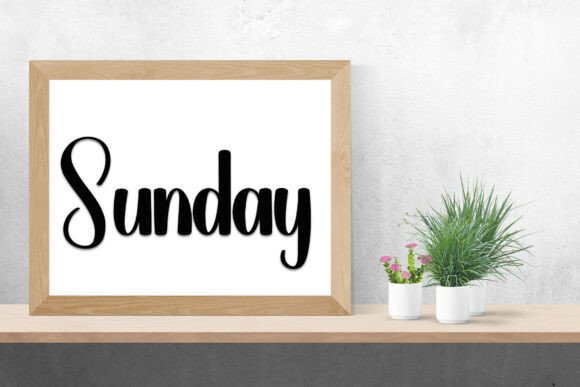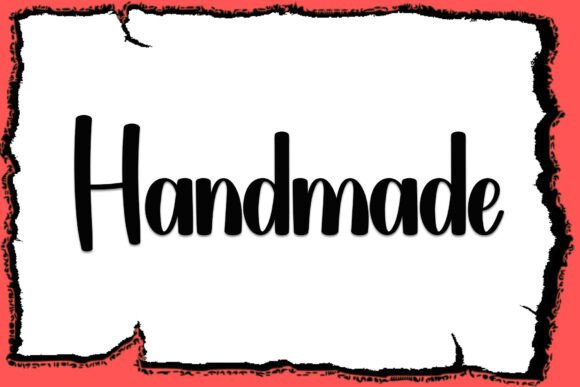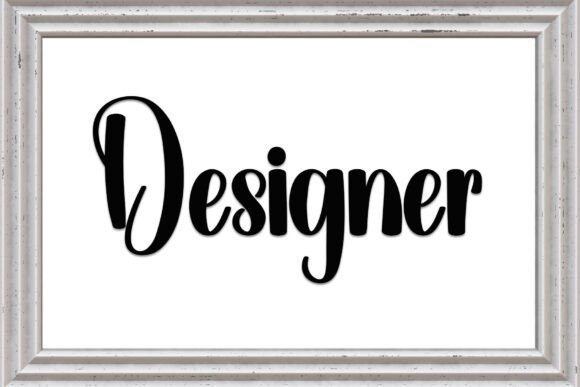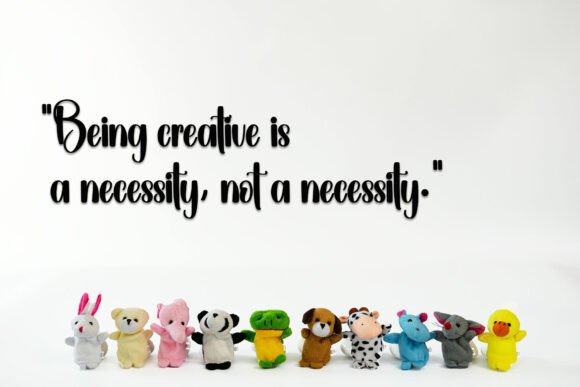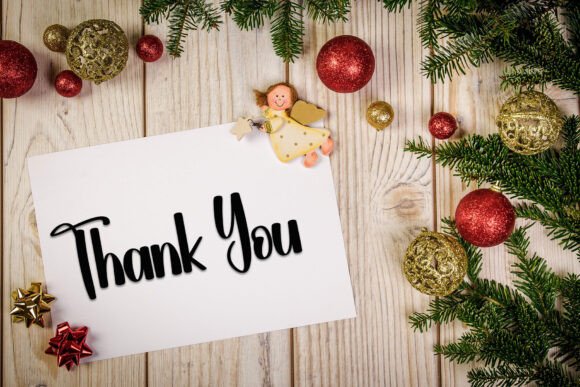
The Perfect Touch of Elegance: Angel Wings Font
As a designer, there’s nothing quite like the thrill of creating something truly special. It’s that moment when all the pieces come together, and you know you’ve made something truly beautiful. For me, that moment often begins with the perfect font – one that adds a touch of elegance and sophistication to my design.
That’s where the Angel Wings Font comes in. This stunning handwritten font is the perfect choice for designers looking to add a unique and timeless touch to their projects. With its beautiful, flowing script, the Angel Wings Font is sure to capture the attention of anyone who lays eyes on it. Whether you’re creating a wedding invitation, a birthday card, or a marketing brochure, this font is sure to make your design stand out.
What sets the Angel Wings Font apart is its versatility – it’s perfect for a wide range of projects, from formal events to everyday communications. With its elegant touch and incredibly distinct style, this font is a valuable addition to any designer’s toolkit.
Angel Wings Font Key Features
- Font Style: Script, Handwritten, Decorative
- Unique Characteristics: Whimsical, elegant, and intricate design elements, including floral patterns and ornate details
Designer Review: Angel Wings Font
Overall, I’d say the Angel Wings Font is a lovely addition to any design project, especially those with a whimsical or magical theme. ✨ The font’s delicate, ethereal quality is perfect for conveying a sense of lightness and freedom.
- The font’s versatility: it can be used for both display and body text, making it a great choice for a wide range of projects.
- The font’s unique, hand-drawn feel: it adds a touch of personality and character to any design.
- The font’s scalability: it looks great in both small and large sizes, making it easy to use in a variety of contexts.
- ⚠️ Limited legibility at very small sizes: while the font is generally easy to read, it can become difficult to decipher at extremely small sizes.
- ⚠️ Limited support for certain languages: the font may not be suitable for projects that require support for languages with complex scripts or characters.
Overall, I think the Angel Wings Font is a great choice for designers looking to add a touch of magic to their projects. While it may have some limitations, its unique quality and versatility make it a valuable addition to any design library.
The Angel Wings Font is perfect for adding a touch of whimsy and fantasy to your designs. Use it for:
– Wedding invitations and stationery
– Children’s book illustrations
– Fantasy and sci-fi themed graphics
– Social media graphics and posts